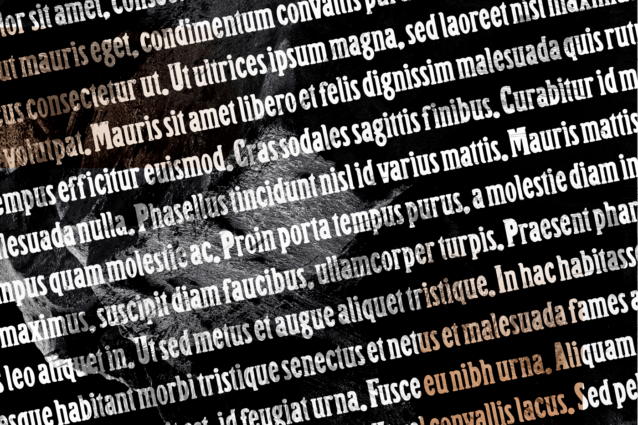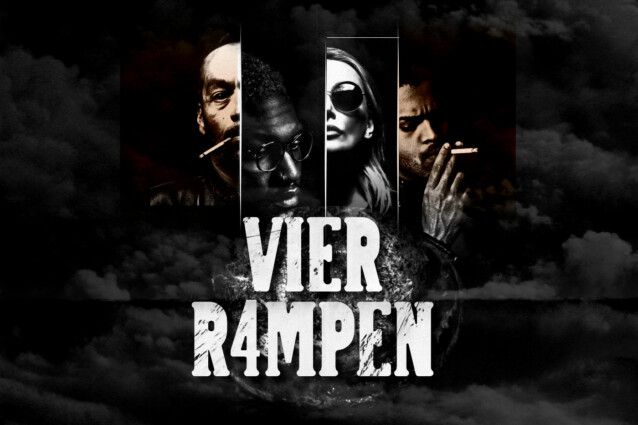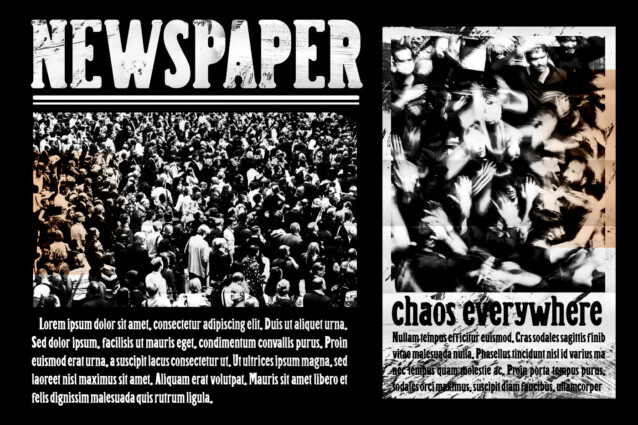
Highan Font
Highan Font is a non-rigid serif display font. The display has blunt angles, so the letters look smooth without leaving the impression of a firm serif font. Regular and italic versions available